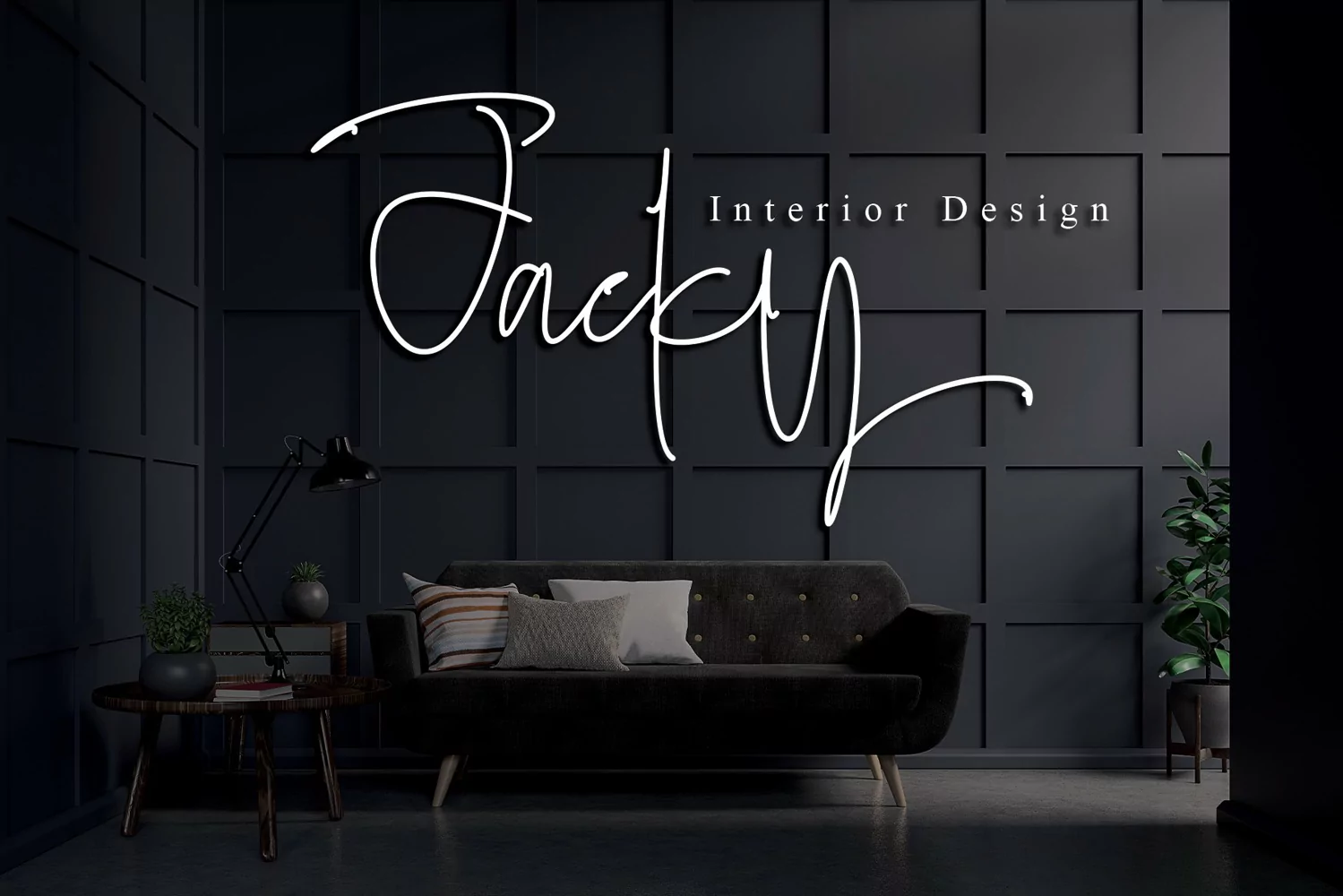
Fergitta is signature monoline font. Clean and elegant,
cursive, legible script font which can be used on a wide variety of designs
such as: headlines, titles, headings, logos, branding, posters, invitations,
books, and any other creative design. This font is PUA encoded which means you
can access all of the cute glyphs and swashes with ease! It also features a
wealth of special features including alternate glyphs and ligatures.